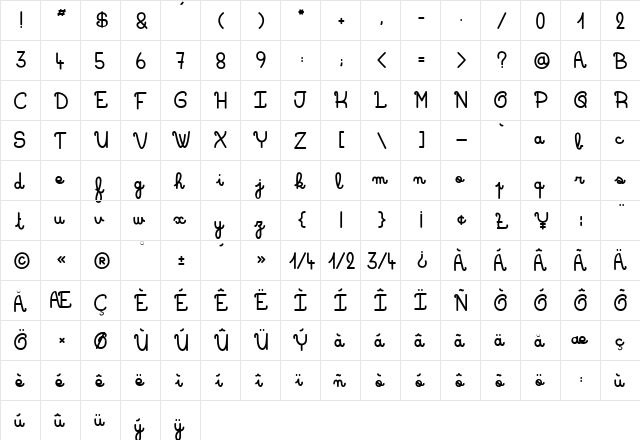
Roses Kingdom Regular
| Foundry | dcoxy Medina Gregory |
| Designer | dcoxy Medina Gregory |
Design Context for Roses Kingdom Typeface
Roses Kingdom is a composed and adaptable typeface that performs quietly and consistently across a wide range of design contexts.